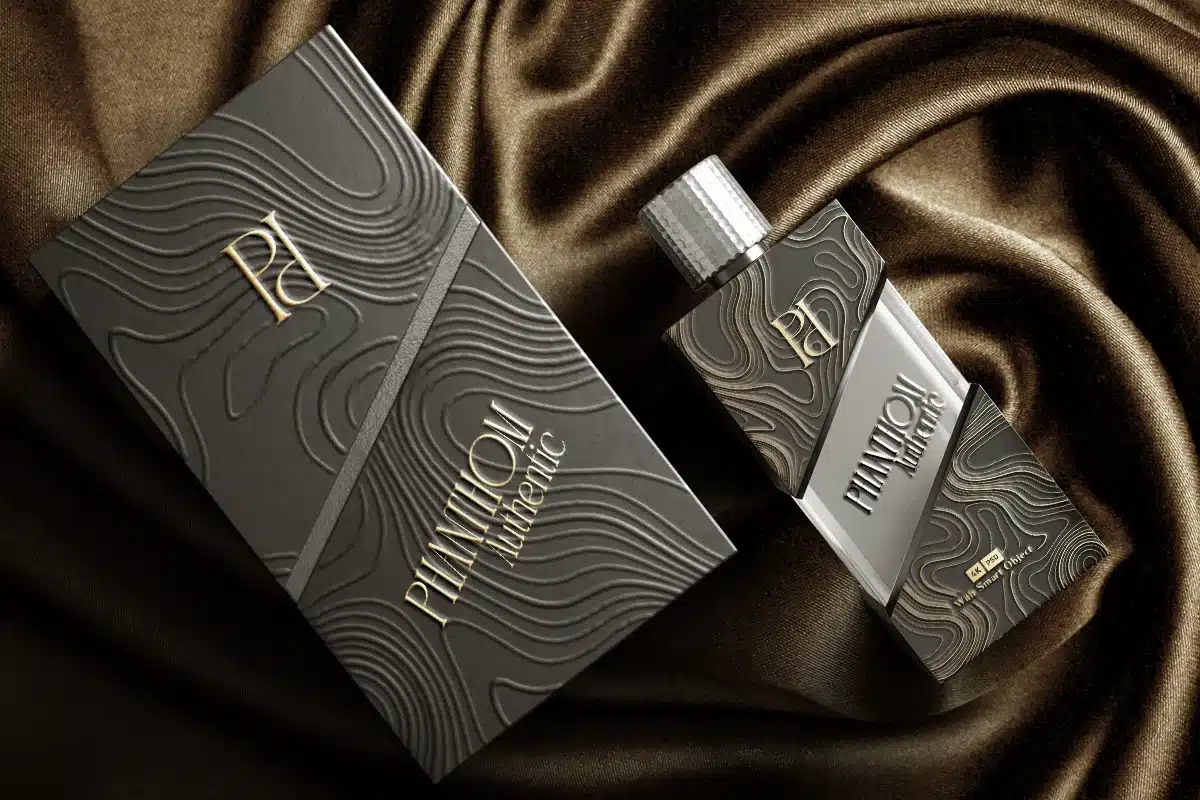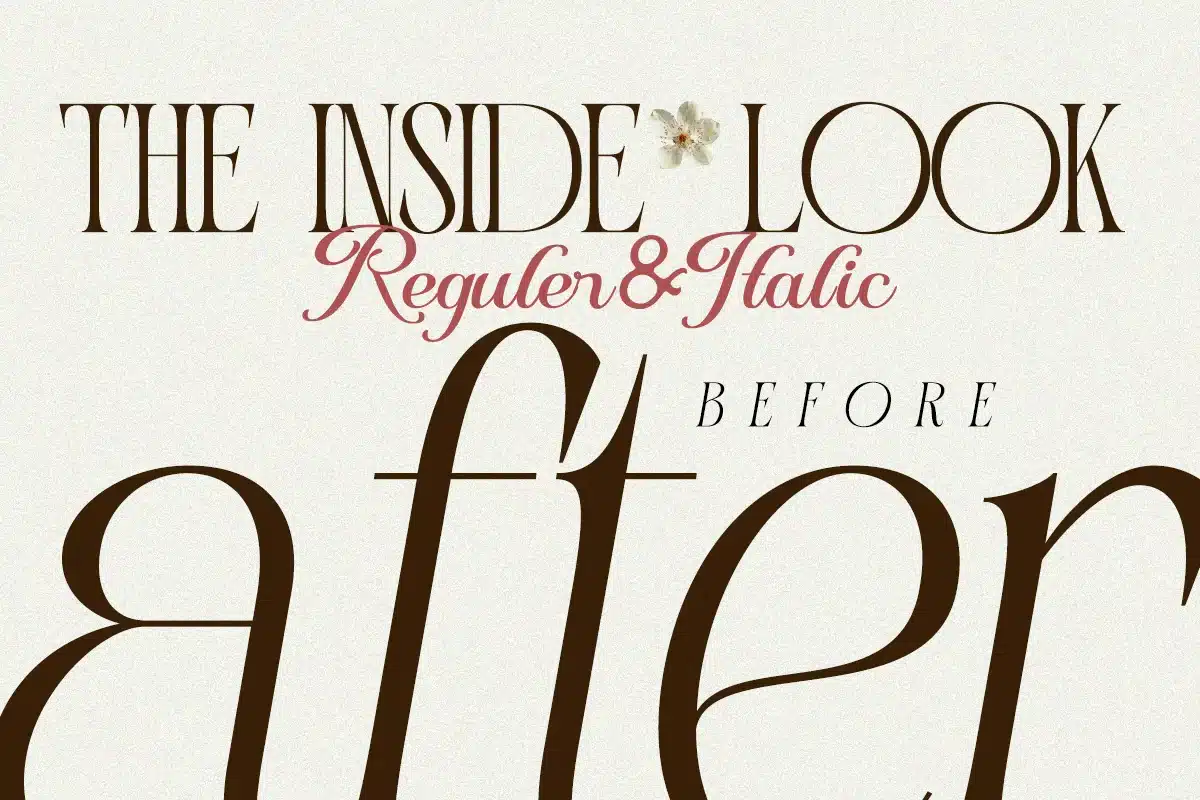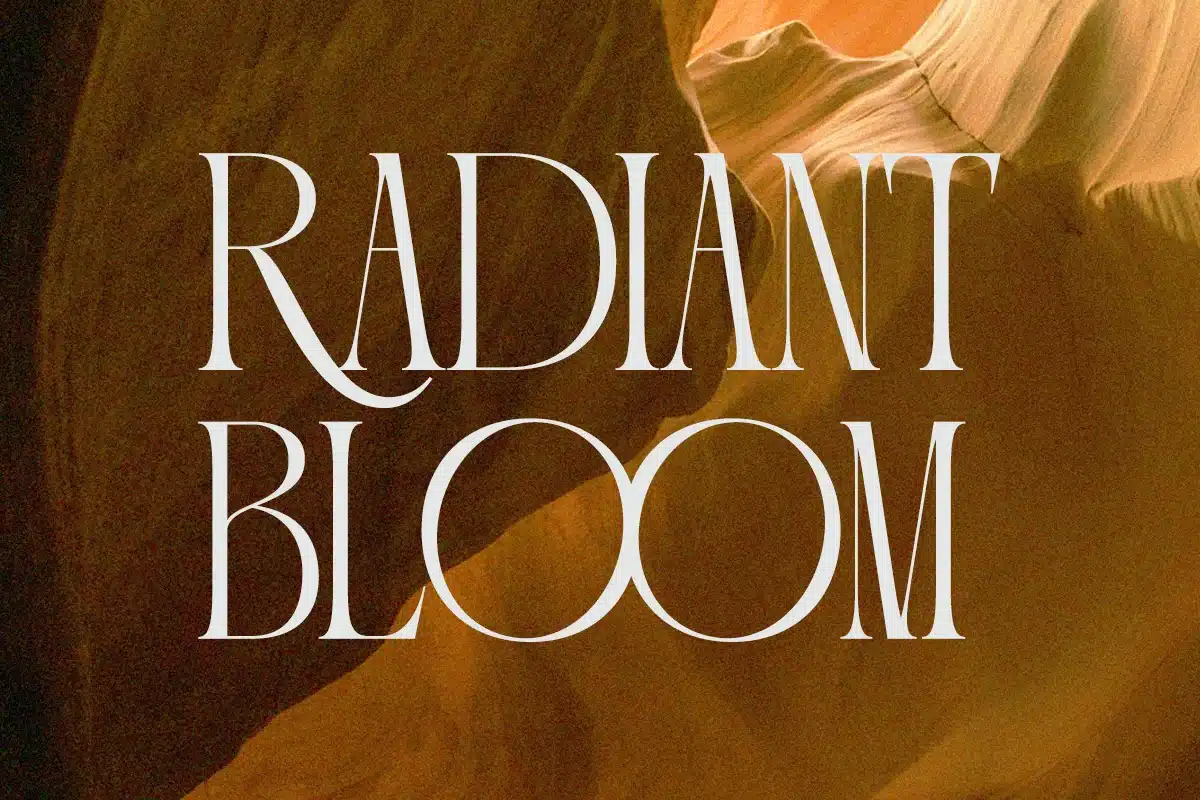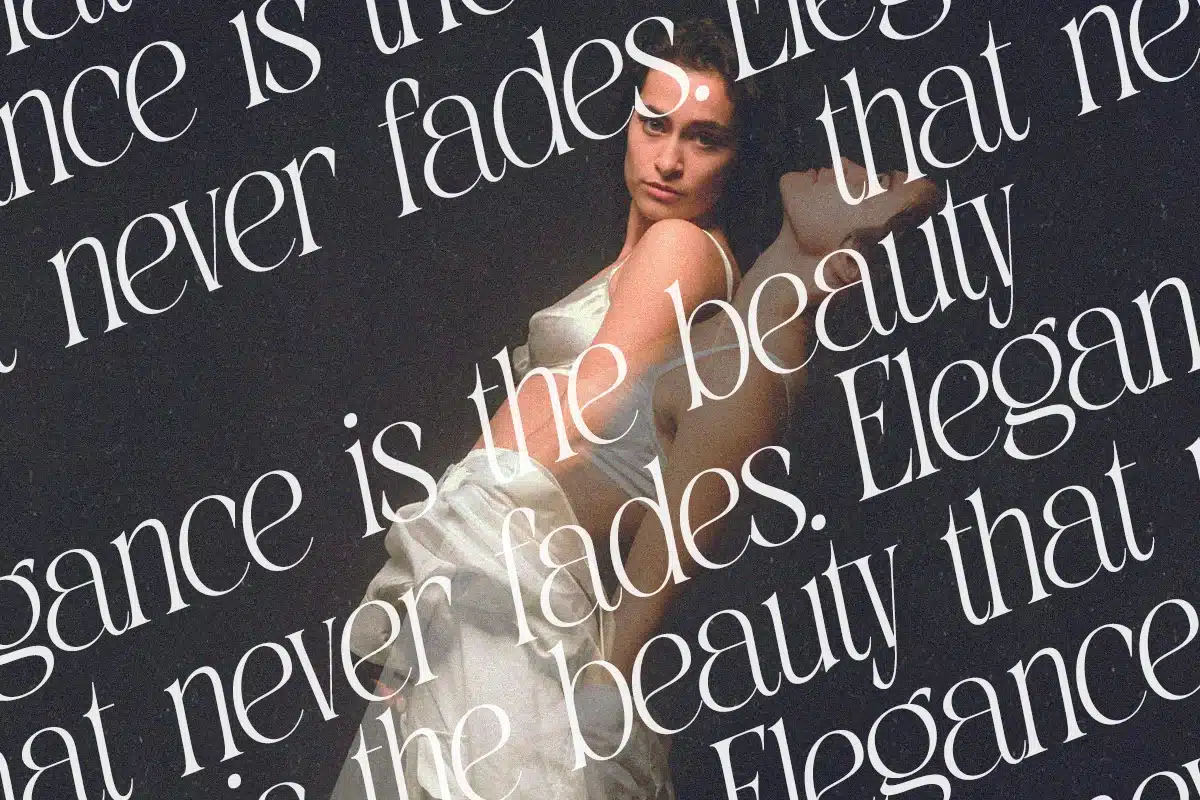
Portiso – Modern Luxury Logo Serif Font
Portiso - Modern Luxury Serif Font for Elegant Design Excellence
Portiso is a modern luxury serif typeface designed to evoke prestige, class, and timeless sophistication. With its elegant letterforms, high contrast strokes, and finely crafted alternates, Portiso is your go-to choice for creating designs that demand attention and exude premium quality.
Whether used in logos, branding materials, editorial layouts, or product packaging, Portiso elevates your message with a graceful yet powerful presence.
✦ Font Features:
- Luxury Serif Typeface – Refined contrast and upscale curves
- Elegant Alternates – Over 30 high-end character variations
- Classic Ligatures – Smooth letter combinations for visual harmony
- Two Weights – Regular & Italic (if available)
- Full Character Set – Uppercase, lowercase, numerals & punctuation
- Multilingual Support – Extended Latin characters
Best For:
- High-end branding projects
- Fashion or beauty logos
- Editorial magazine layouts
- Luxury packaging design
- Wedding invitations & event branding
- Premium social media content
Portiso – Redefining Modern Elegance
Crafted for designers who value detail and distinction, Portiso blends modern serif aesthetics with traditional finesse—making every word look like a work of art.